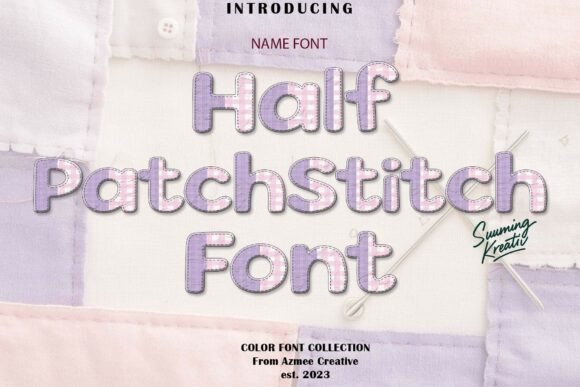
Stitching Up Your Designs: The Cozy Charm of Half-Patchstitch Font
Do you remember the feeling of snuggling up under a handmade quilt on a chilly winter evening? The soft fabric, the intricate stitching, the warmth and love that went into every stitch? For designers looking to bring that same cozy charm to their work, Half-Patchstitch Font is the perfect addition to their toolkit.
This adorable color font is inspired by the world of handmade fabric and stitching art, featuring a unique “half-and-half” design that combines gingham patterns with solid soft colors, all tied together by realistic stitching details. With its pastel color palette and tactile visual experience, Half-Patchstitch Font is perfect for children’s designs, nursery decor, and creative DIY branding.
- Unique Patchwork Design: The font features a distinctive half-patchstitch design, creating a visually appealing and eye-catching effect.
Half-patchstitch Font Review
As a designer, I’m always on the lookout for unique and creative fonts to add some personality to my projects. The Half-patchstitch Font caught my eye with its quirky, hand-stitched aesthetic. Here’s my honest review:
- Uniqueness**: The font stands out from the crowd with its one-of-a-kind design, making it perfect for projects that need a touch of whimsy.
- Legibility**: Despite its handmade look, the font is surprisingly easy to read, even at smaller font sizes.
- Flexibility**: The font comes in a variety of weights and styles, making it easy to adapt to different design needs.
- Limited Character Set**: The font only includes a limited set of characters, which may not be suitable for complex text-based projects.
- Not Ideal for Small Text**: While legible, the font may not be the best choice for small text, as the stitching can become distracting.
Overall, the Half-patchstitch Font is a great choice for projects that require a unique, handmade look. While it may have some limitations, its flexibility and legibility make it a solid addition to any designer’s toolkit.
The Half-patchstitch font is ideal for creating vintage-inspired designs, such as:
- Wedding invitations and decorations
- Custom embroidery and quilting patterns
- Quirky greeting cards and gift tags